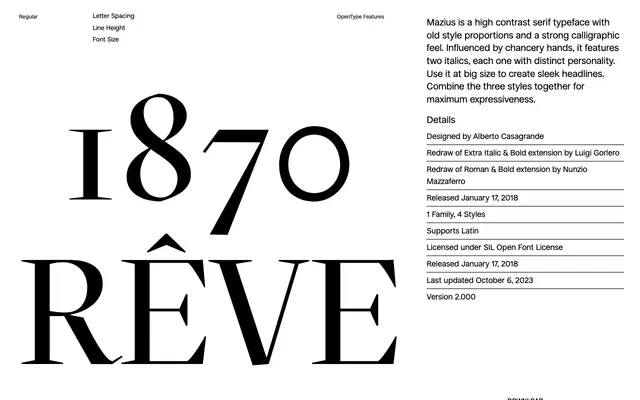
Mazius Display
Collletttivo · Alberto Casagrande · 2018
A high-contrast display serif with old-style proportions and a chancery calligraphic character, released free under the SIL Open Font License.
Designed by Alberto Casagrande and released in 2018, Mazius Display draws on chancery hand traditions to produce a serif with strong stroke contrast and old-style proportions. The family spans four styles, pairing an upright Roman and Bold with two distinct italic cuts, each carrying its own personality. Best used at large sizes for headlines, with the three styles combined for expressive typographic contrast.
A high-contrast serif with old-style proportions and a marked calligraphic quality drawn from chancery hand traditions; its extreme contrast and display orientation place it firmly in the display serif category.